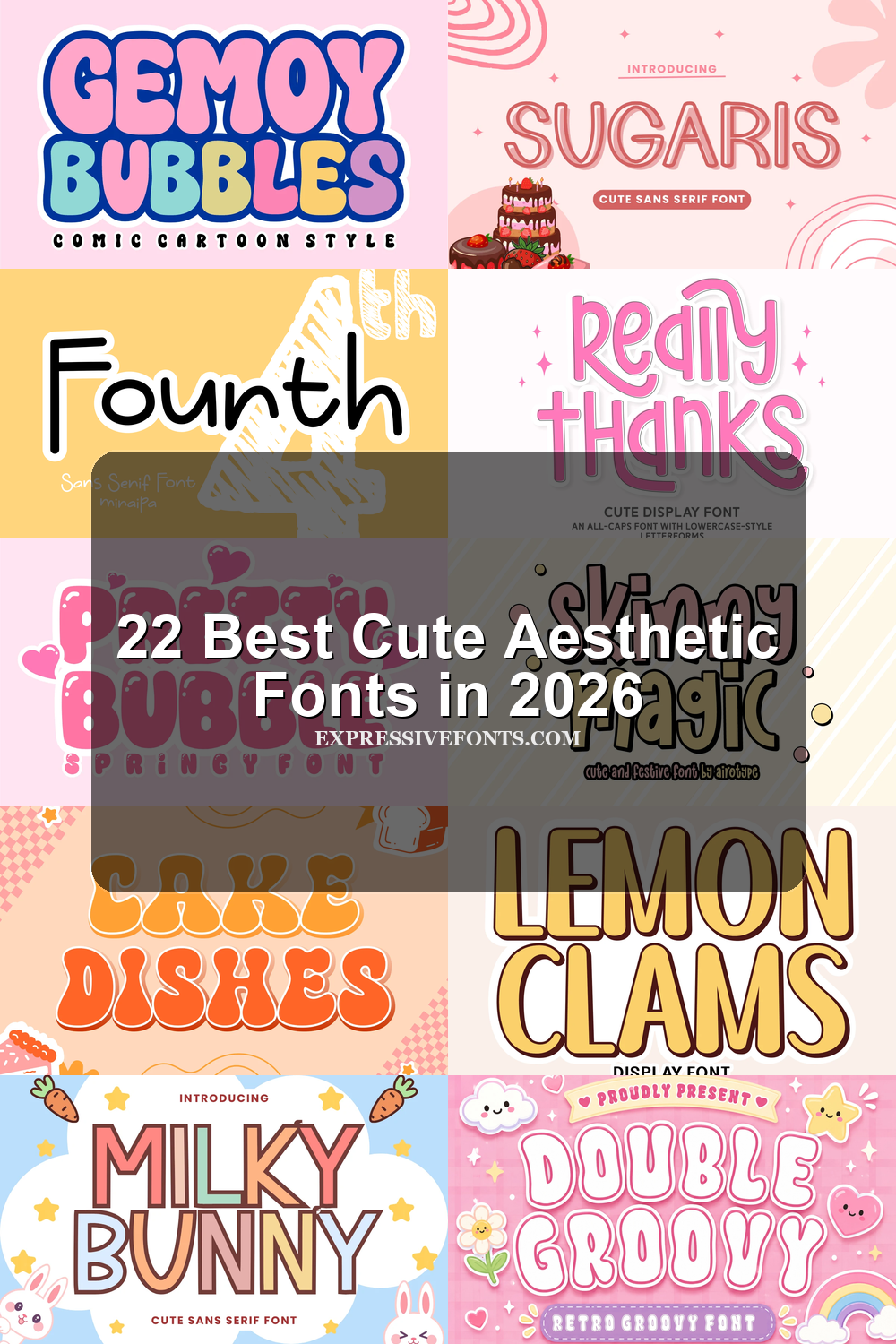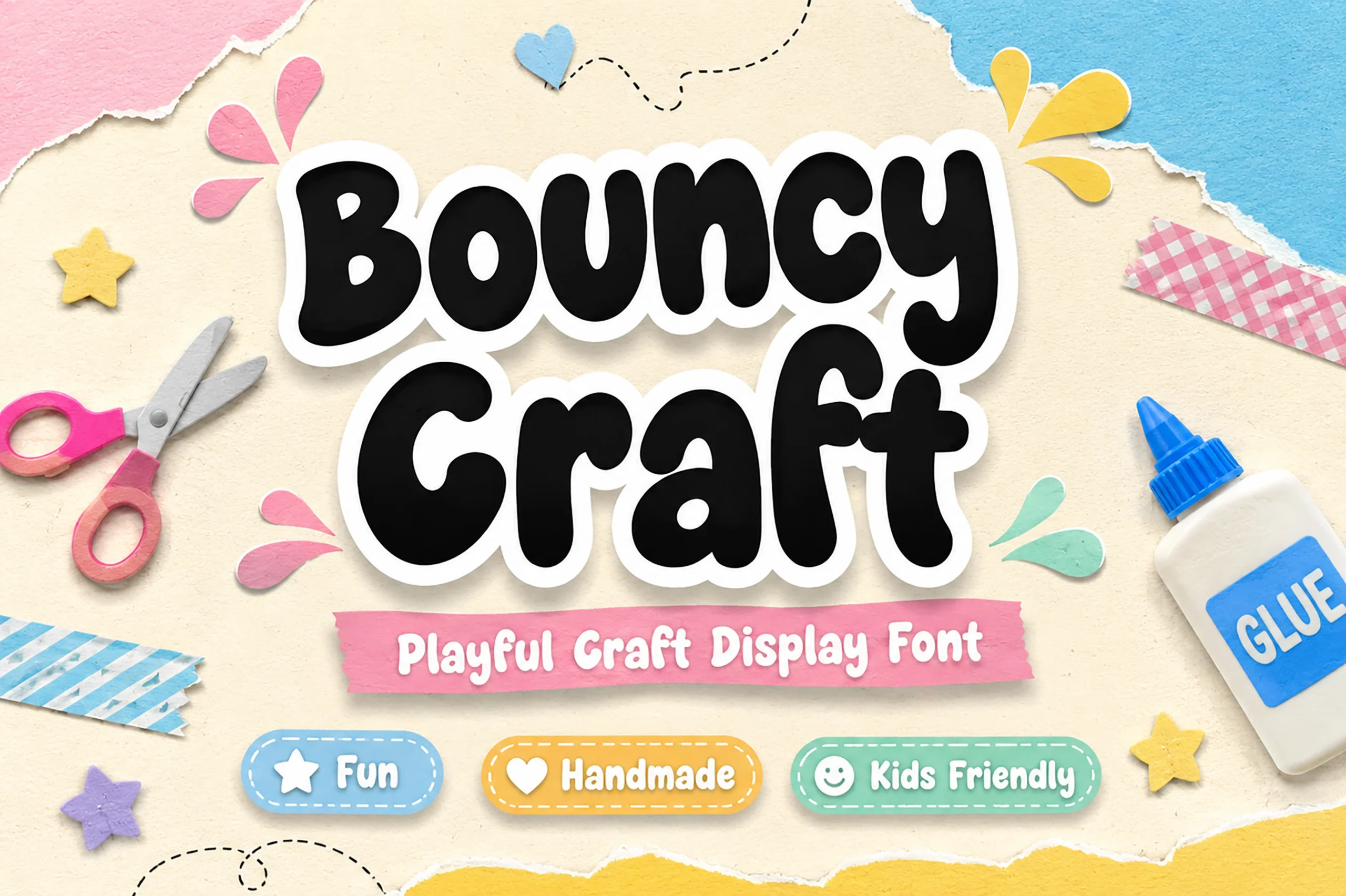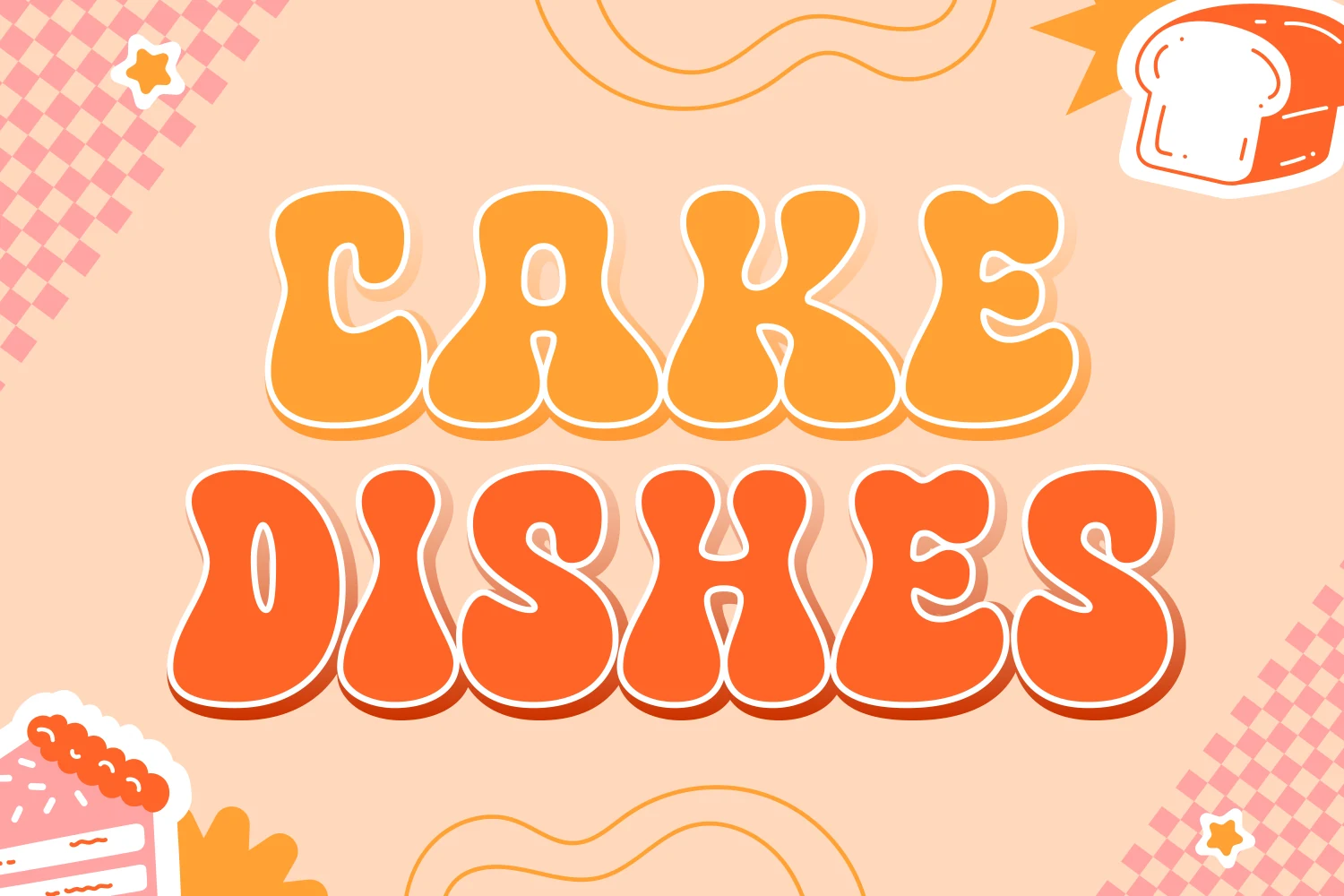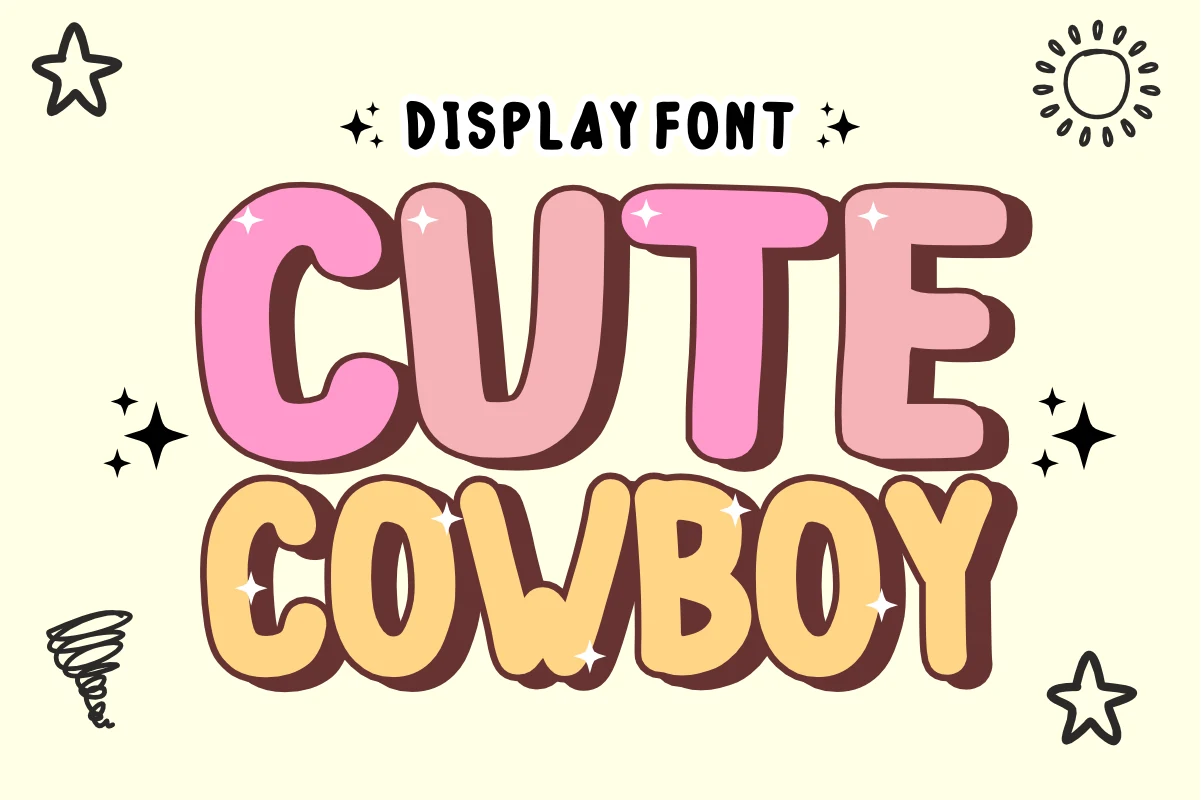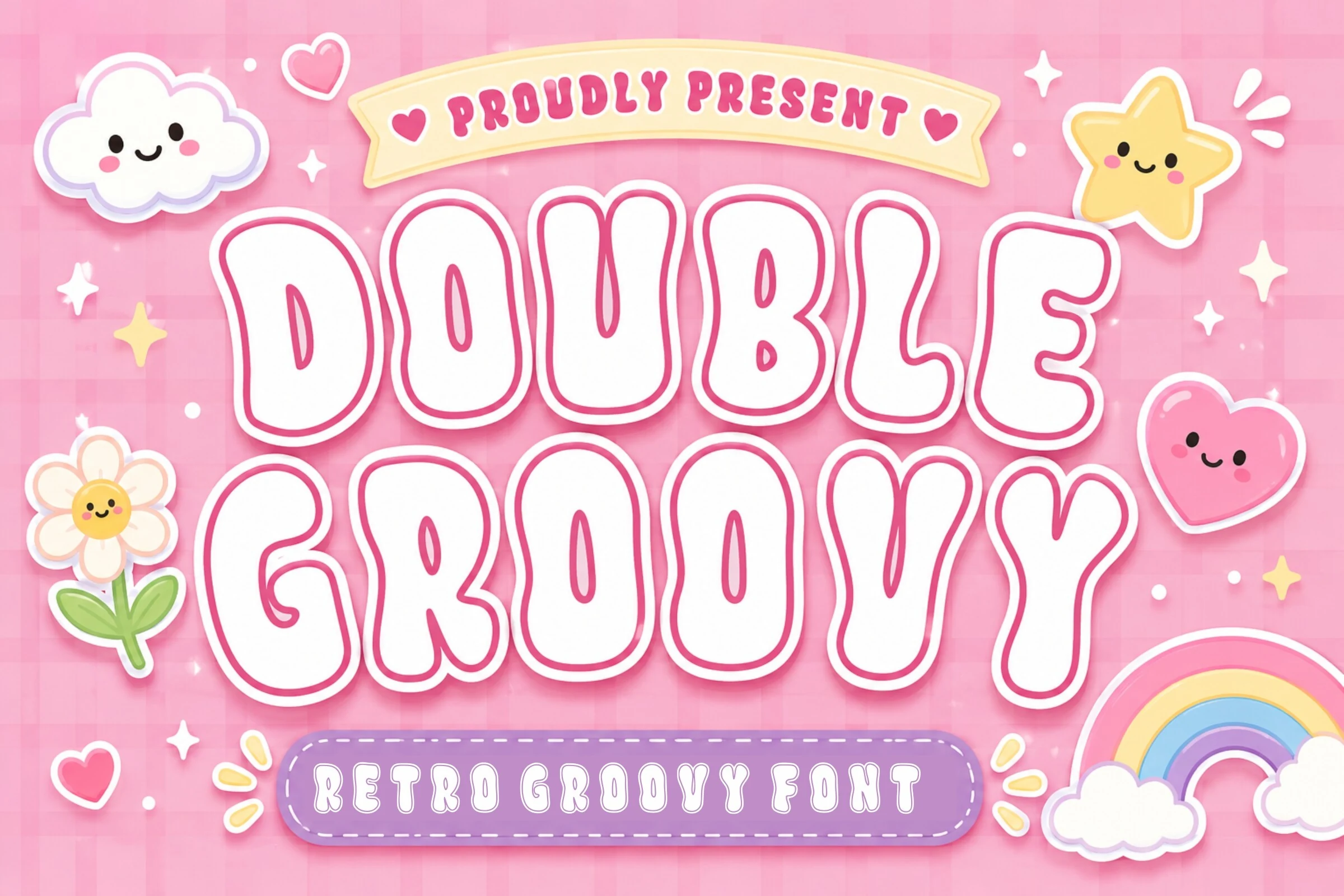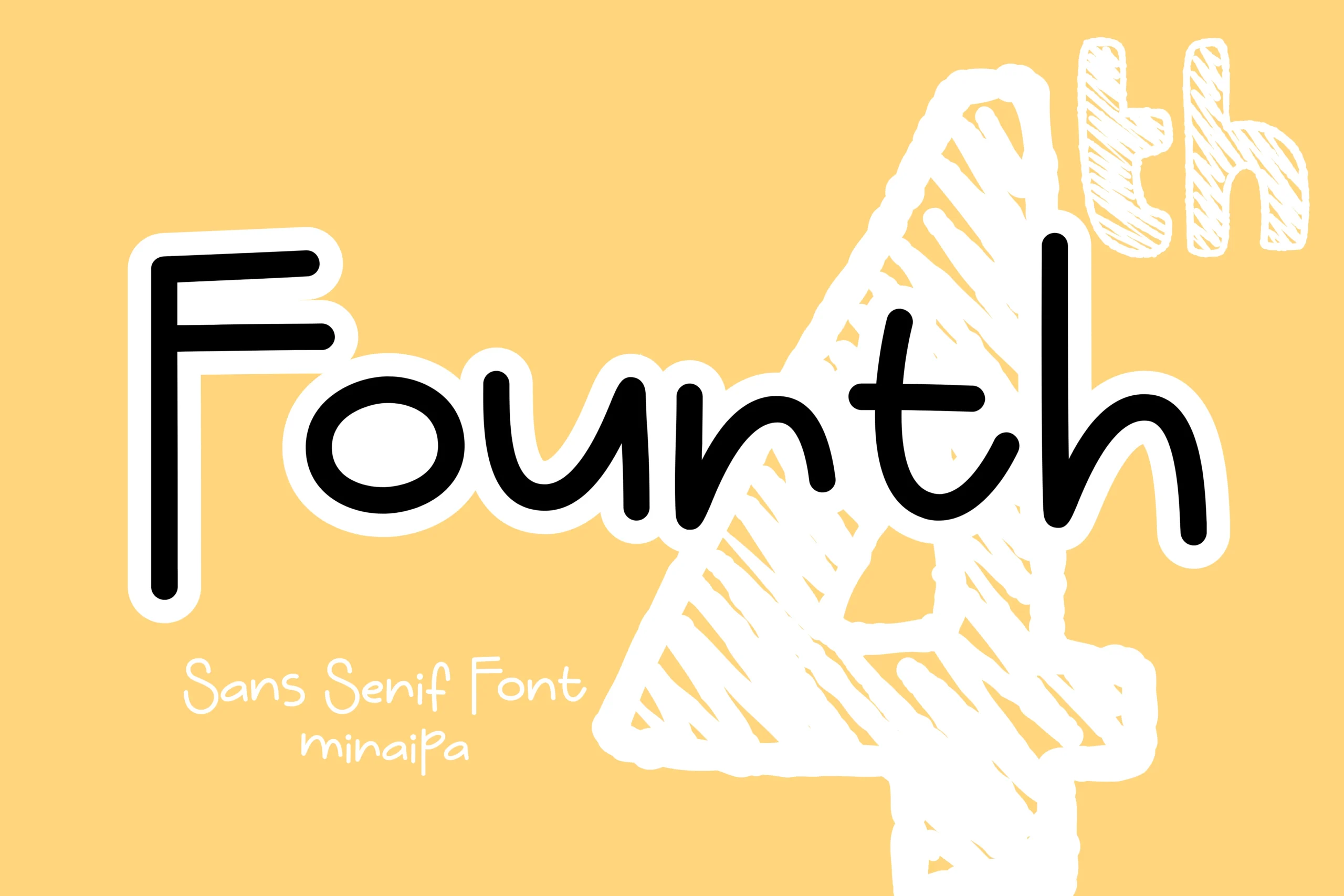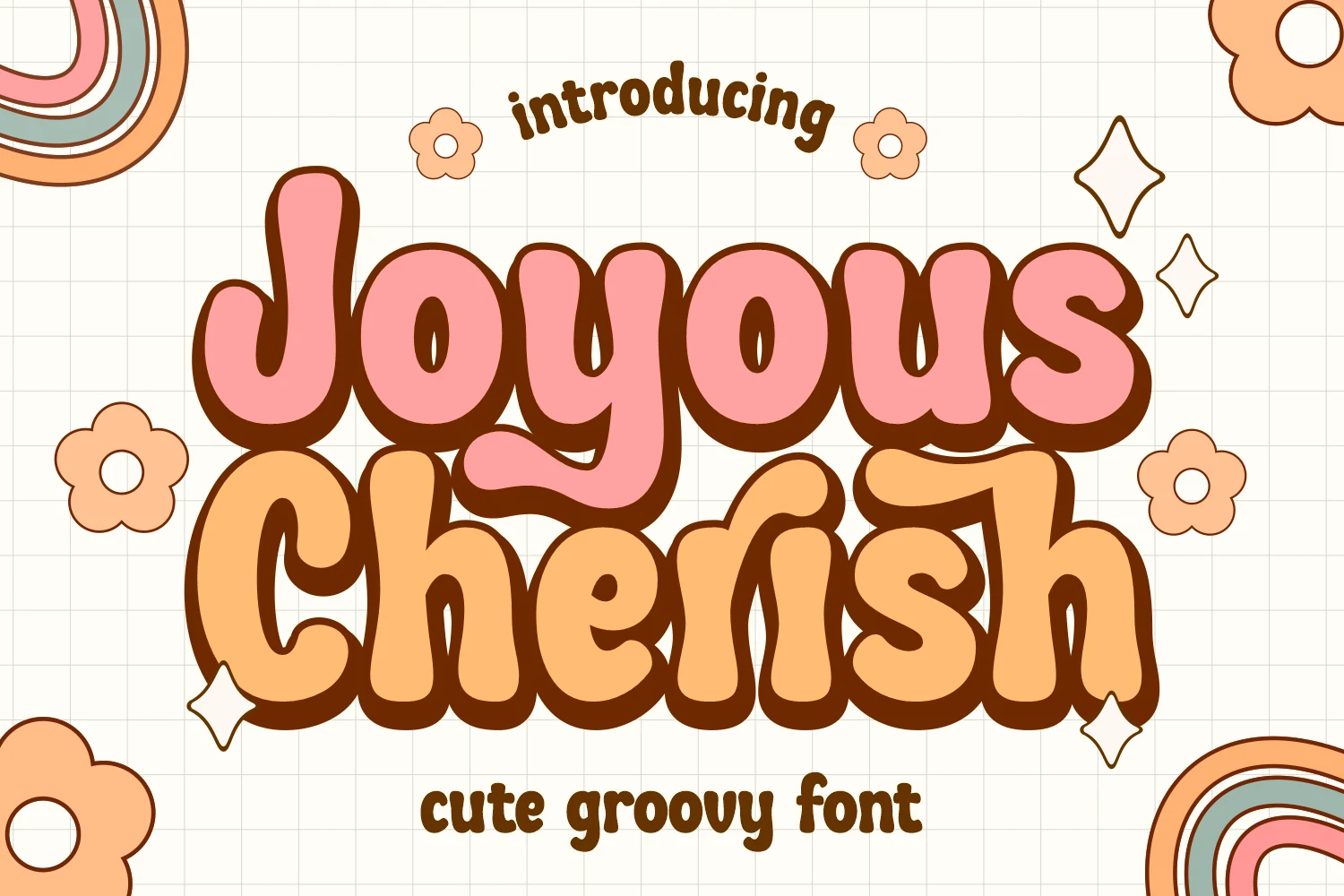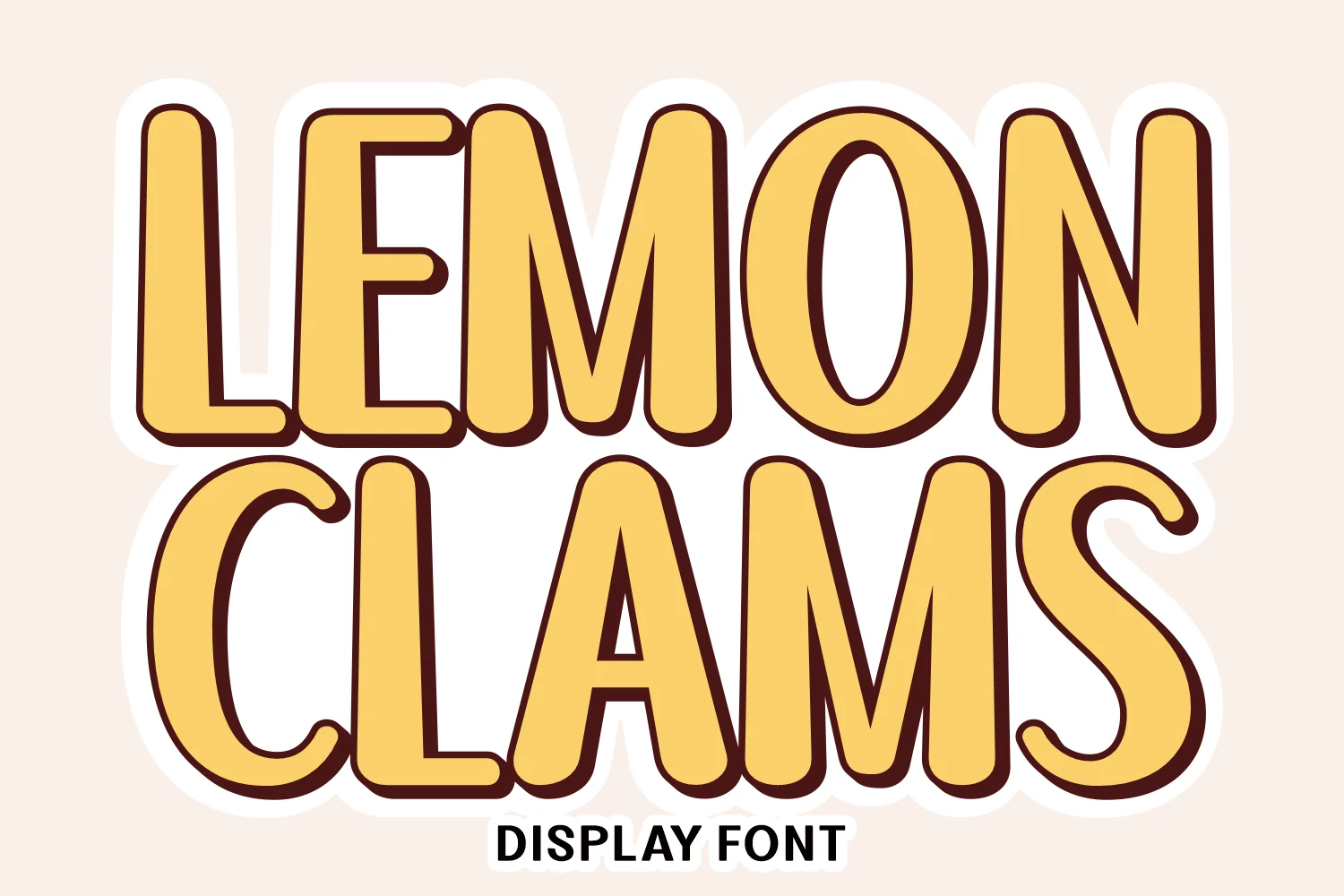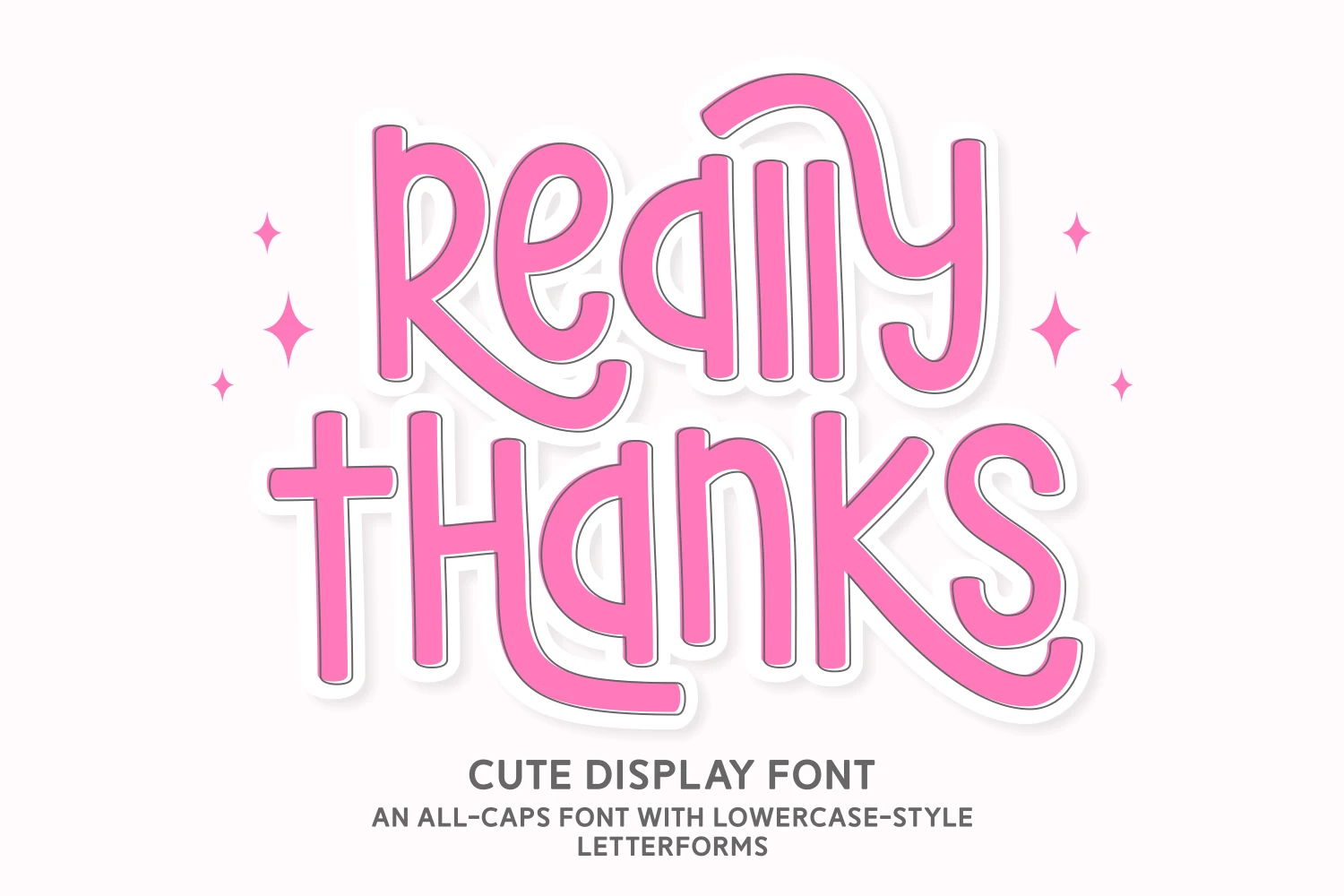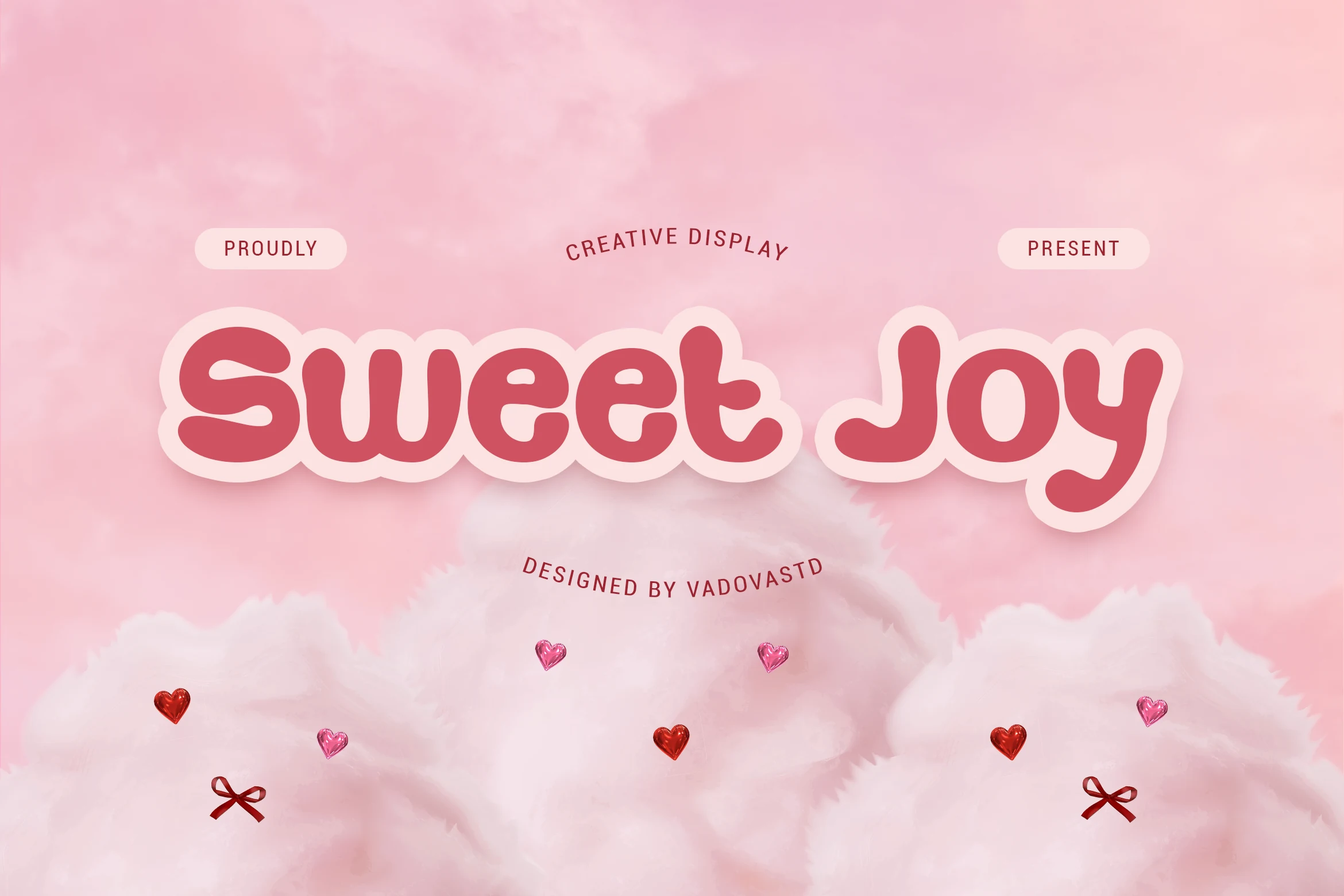
22 Best Cute Aesthetic Fonts in 2026
Cute Aesthetic Fonts span glossy bubble capitals, rounded handwritten forms, outlined effects, playful shadows, and retro craft-inspired shapes. Together, they suit posters, stickers, social graphics, packaging, children’s projects, and other short display messages where construction and mood matter.
Cute Aesthetic Fonts: Rounded Bubble Displays
Cute Aesthetic Fonts: Rounded Bubble Displays focus on thick, wide, low-contrast forms with stable construction, separating their sturdy headline presence from looser handwriting and decorative effects.
Pretty Bubble Font
Pretty Bubble Font featuring rounded, soft-edged bubble letterforms and bold, thick strokes
Pretty Bubble Font builds bold, rounded capitals with glossy highlight accents along the upper curves. Its low-contrast, disconnected construction reads strongly on large posters and social graphics, though those highlights lose definition when lettering becomes small.
Hello Bubble Font
Hello Bubble Font showing thick, rounded bubble-style letterforms with soft curves and upper-left highlight elements.
Hello Bubble Font inflates rounded forms into heavy bubble-gum shapes, with upper-left highlights that suggest a glossy surface. Its substantial mass makes short headlines and stickers impactful, though longer phrases need careful sizing and spacing.
Cute Cowboy Font
Cute Cowboy Font displayed in a thick, rounded, bubble-style typeface with upright chunky letterforms.
Cute Cowboy Font uses wide, chunky bubble proportions with generous spacing and thick uniform strokes. The open construction stays highly legible in large headlines and children’s designs, although its broad footprint consumes horizontal space quickly.
Sweet Joy Font
Sweet Joy Font displayed in a bold, rounded bubble style with thick strokes and organic letterforms.
Sweet Joy Font softens bold rounded construction with organic bubble shapes and low-contrast strokes. It stays legible in large marks for branding, packaging, social graphics, and children-related designs, but its heavy weight is not intended for long copy.
Gemoy Bubbles Font
Gemoy Bubbles Font with chunky rounded bubble letters, heavy strokes, and a thick outline.
For stickers and children’s designs, Gemoy Bubbles Font reinforces a compact, wide bubble silhouette with a thick outer outline. The outlined mass reads forcefully at large sizes, but its visual density loses flexibility when reduced.
Sweet Love Font
Sweet Love Font in large bold, bubbly capital letters with rounded terminals and thick monolinear strokes.
Sweet Love Font gives rounded bubbles a broad footprint through wide proportions and blunt terminals. Thick monoline construction keeps large headlines clear and approachable, while the generous width makes long phrases inefficient.
Bouncy Handwritten Shapes
These bouncy handwritten shapes use rounded terminals, disconnected characters, and uneven rhythms to add warmth and movement, while remaining more readable than highly flourished decorative lettering.
Fourth Font
Fourth Font shown in a bold rounded sans serif style with monolinear strokes and rounded terminals.
Fourth Font uses monoline rounded strokes, a generous x-height, and upright disconnected forms. That unusually open proportion keeps headlines clear at medium-to-large sizes, although its stable baseline offers less expressive movement than connected lettering.
Sweet Child Font
Sweet Child Font showing a bold, rounded handwritten typeface with bouncy strokes, loops, and decorative terminal flourishes.
For logos and short headings, Sweet Child Font brings irregular stroke widths, loop-like finishes, and flourished terminals to rounded upright letters. The bouncy baseline creates a whimsical voice, but its decorative curves and loops need generous sizing to remain legible.
Milky Bunny Font
Milky Bunny Font featuring bold geometric letters with thick uniform strokes and straight-edged terminals.
Milky Bunny Font takes a geometric block approach, using uniform heavy strokes and straight-edged terminals instead of soft handwritten movement. Its sturdy construction stays clear on stickers, invitations, quotes, and other large craft-oriented display work.
Young Sisters Font
Young Sisters Font in a bold rounded handwritten style with soft-edged characters and an irregular baseline.
Young Sisters Font places soft monoline letters on an irregular baseline, giving short phrases and quotes a warm, relaxed rhythm. Rounded strokes preserve sturdy display readability, including at smaller display sizes, without relying on elaborate joins or flourishes.
Modern Whimsical Font
Modern Whimsical Font showing rounded, upright characters with a bouncy baseline and monolinear strokes.
How to Choose the Right Font
Choose among Cute Aesthetic Fonts by matching construction to scale: use wide, heavy bubbles for bold headlines, monoline or upright handwritten forms for clearer phrases, and swashes, drips, outlines, or shadows when decoration is the design role. Check joins, counters, spacing, and flourishes at the final size before committing.